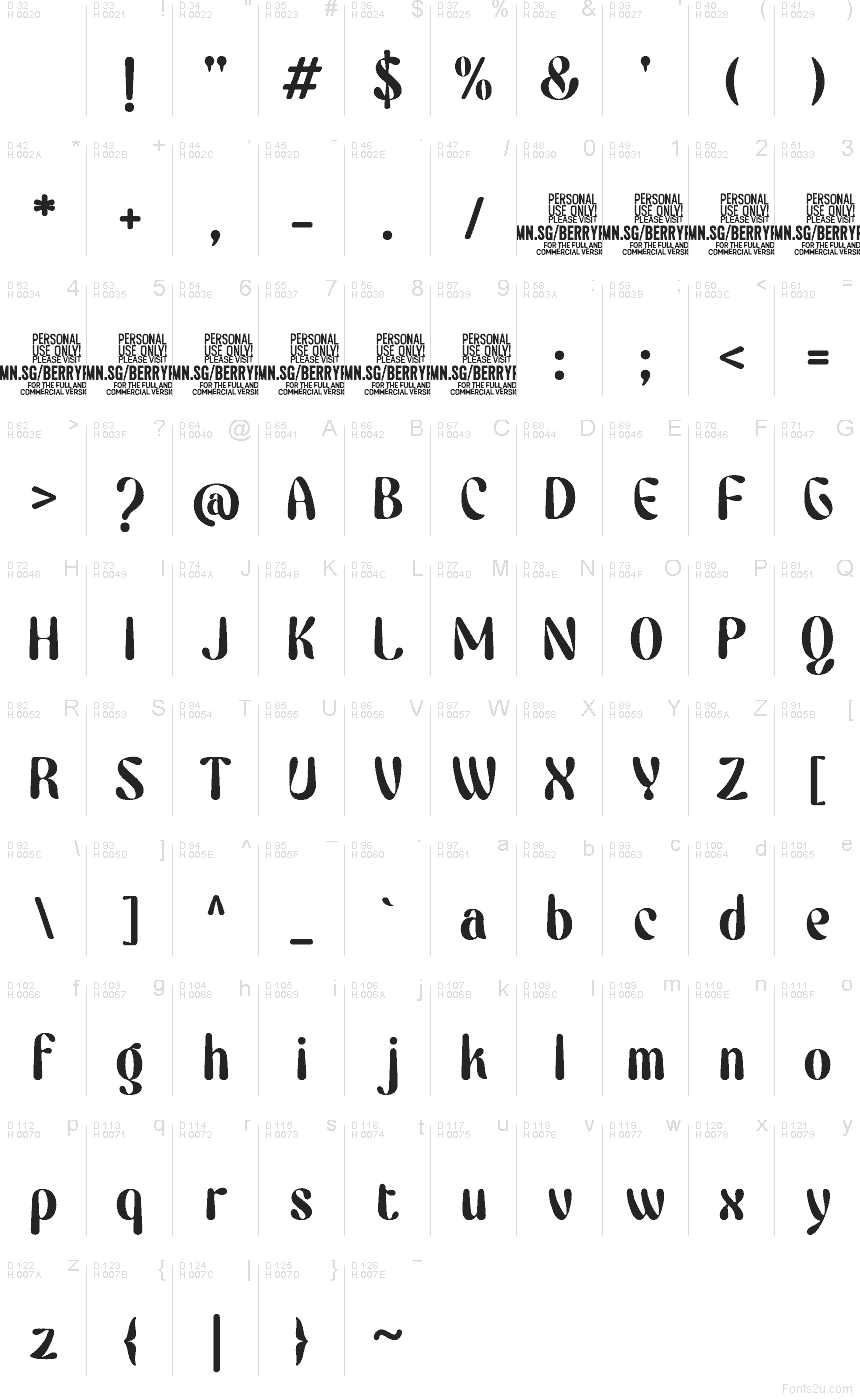
Berryfold PERSONAL USE Regular
Berryfold font by Mans Greback is a free groovy display typeface with a soft, pillowy presence and rounded edges that feel almost hand-molded. Each letter swells with a gentle fullness, giving words a bouncy, upbeat rhythm without tipping into cartoonish. The even stroke weight keeps everything grounded and legible, so your message feels confident while still radiating warmth and charm.
Using Berryfold, text looks like it’s been shaped from smooth ink rather than assembled from parts, which works beautifully for branding, packaging, posters, event titles, social media graphics, and playful logo wordmarks. This free font shines at larger sizes where its curves can really breathe; pair it with a clean geometric sans for body copy to let Berryfold handle the fun, attention-grabbing moments.